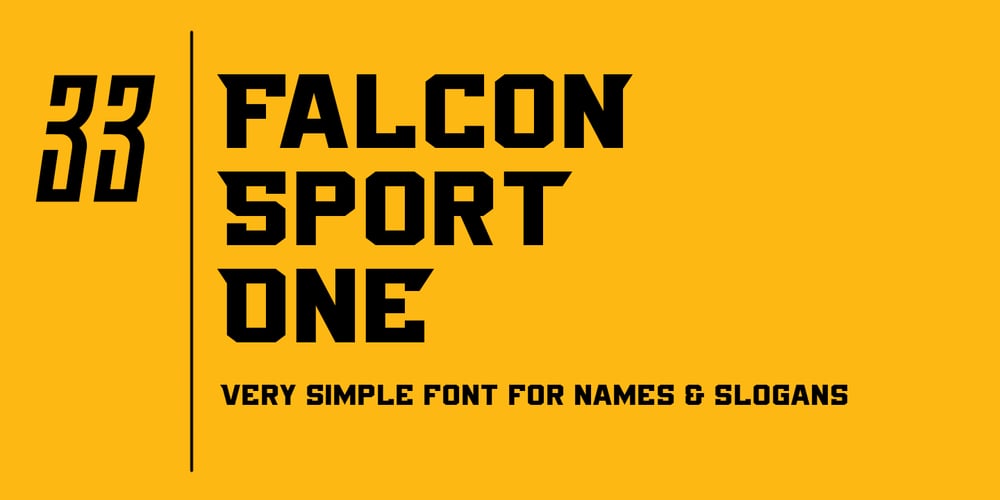
Falcon Sport
Falcon Sport font
Falcon Sport Font Family was designed by Vladimir Platonov and published by QubaType. Falcon Sport contains 4 styles and family package options. Falcon Sport is a square typeface with a bold, easy design. The typeface includes Latin and Cyrillic uppercase, numbers and punctuation. Falcon Sport comes two styles and includes italics. This typeface works great for logos (also sport logos), packaging and other display settings.